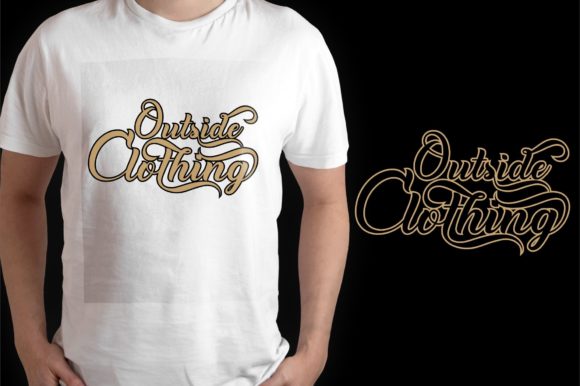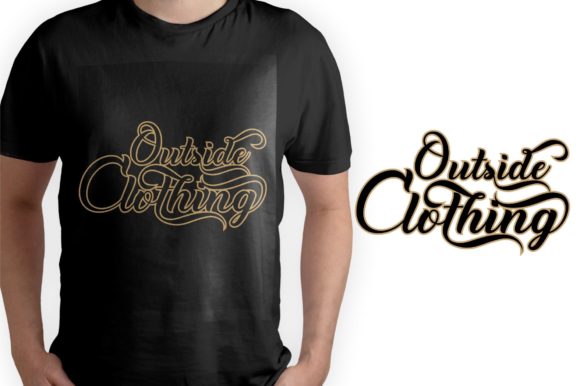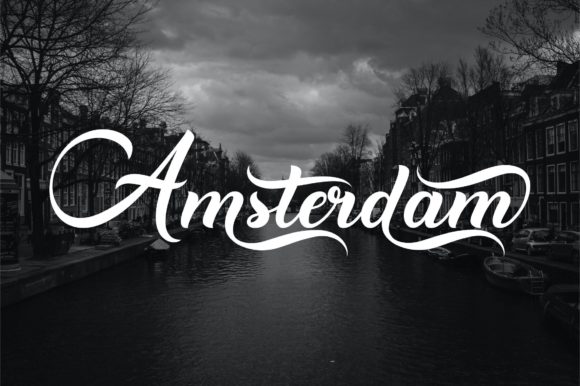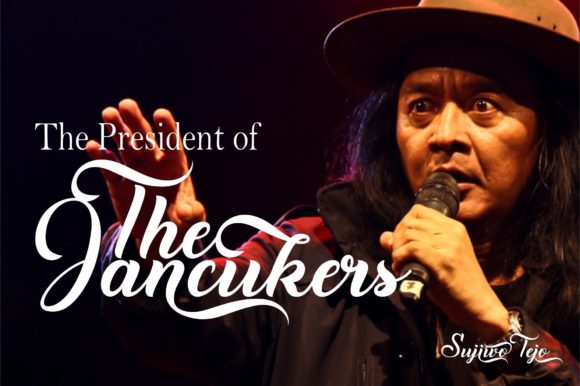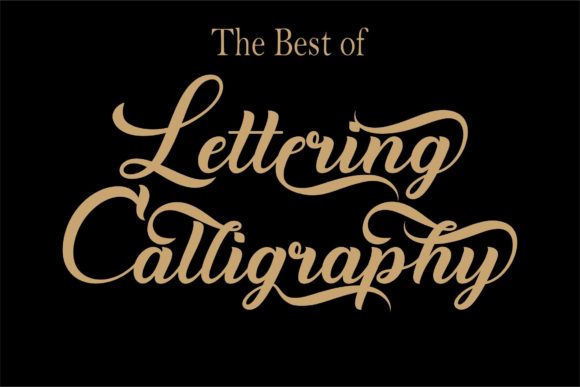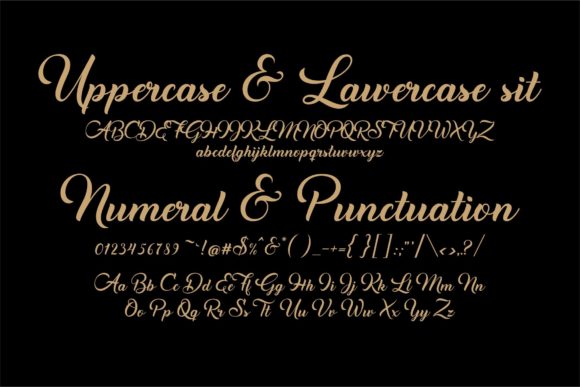
About Magical Harmony Font
Magical Harmony is a gorgeous, cursive and thick lettered handwritten font, crafted to give your headlines and logotype projects a stylish touch. This font reads as strong, confident, and dynamic and can add tons of nostalgic character to your designs. Magical Harmony is PUA encoded which means you can access all of the glyphs and swashes with ease!